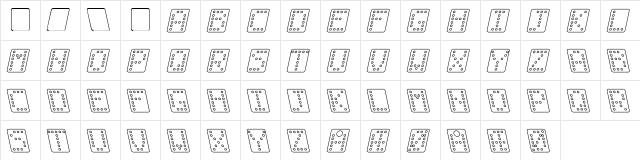
Domino bred kursiv omrids Regular
Design Context for Domino bred kursiv omrids Typeface
Domino bred kursiv omrids is a composed and adaptable typeface that performs quietly and consistently across a wide range of design contexts. The slanted form adds forward momentum and visual energy.